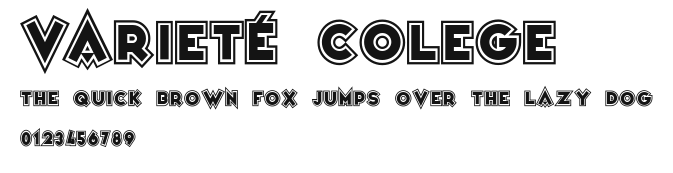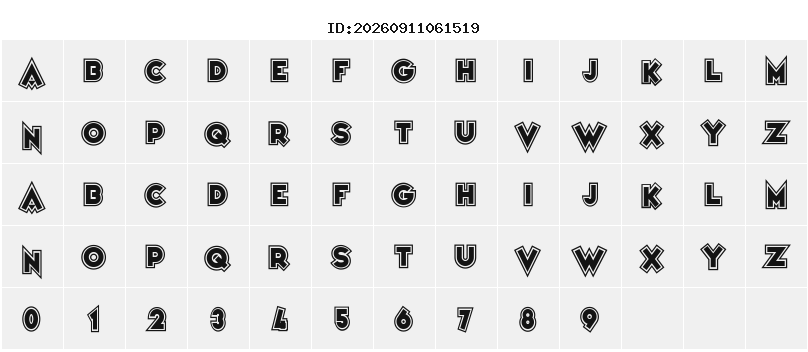
• Font Name: Varieté Colege
• Font ID: PeterWiegel: Varieté Colege: 2009
• Full Font Name: Varieté Colege
• Character Count: 217
• Designer: Peter Wiegel
• Manufacturer: Peter Wiegel
About Varieté Colege.ttf
Varieté Colege.ttf is a modern, elegant sans-serif font designed for ultimate readability and visual harmony. Perfect for branding, headlines, web design, and print materials.